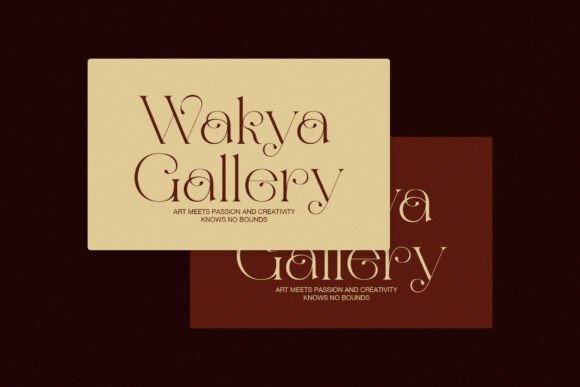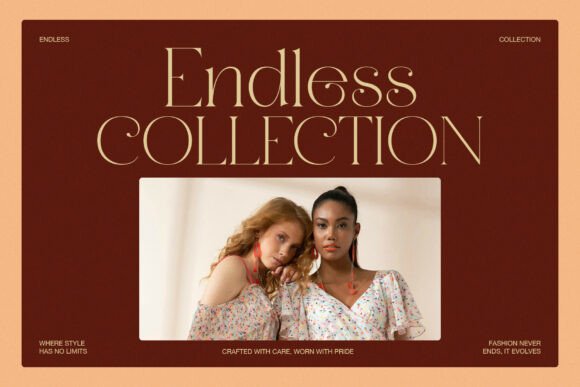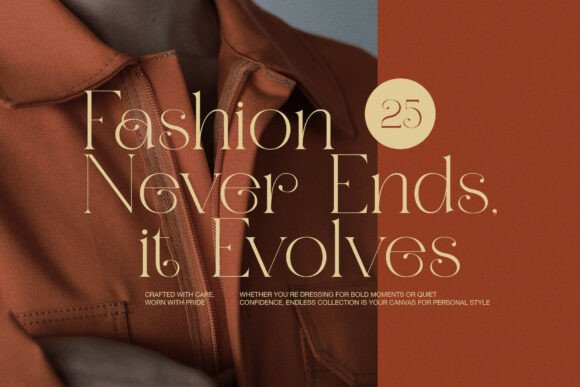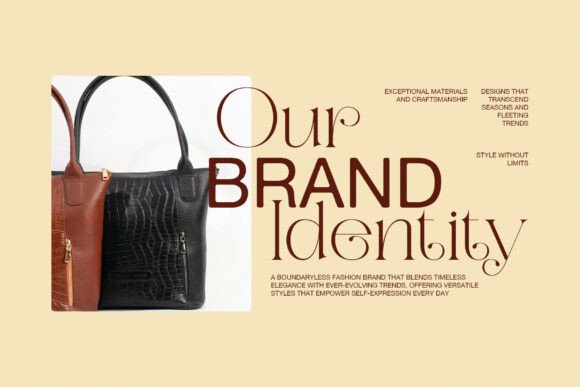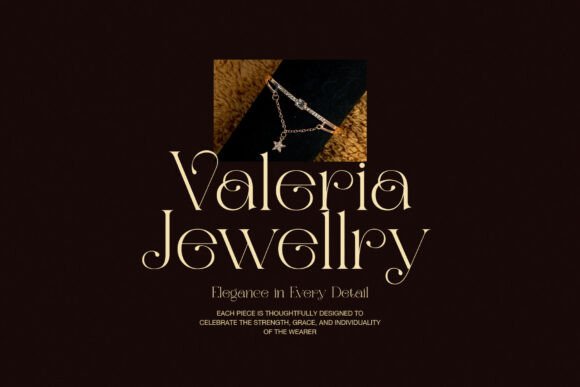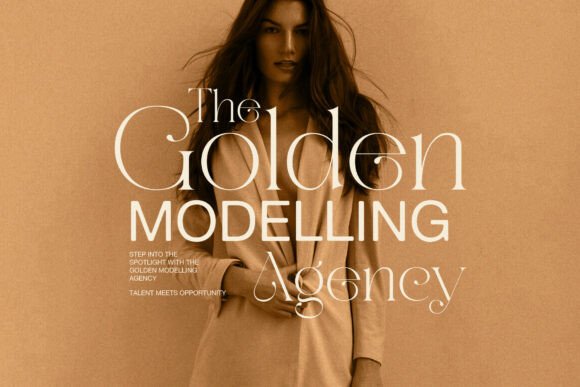
The Grigan Font: A Modern Serif for Creative Projects
I’ll never forget the struggle I faced while working on a branding project for a luxury skincare brand. My client wanted a font that exuded elegance, sophistication, and a touch of modernity. I scoured the internet, tried countless fonts, but nothing seemed to fit the bill. That was until I stumbled upon the Grigan font. With its clean lines, balanced shapes, and refined letterforms, it was love at first sight! ✨ In this article, I’ll share my experience with Grigan, its features, and how to make the most of this beautiful font.
An Honest Review of Grigan Font
What I Love About Grigan
- ✨ Clean and modern design: Grigan’s sleek lines and balanced shapes make it perfect for a wide range of branding needs.
- ✅ Refined letterforms: The font’s even spacing and polished look make it ideal for projects that require a professional feel.
- 💫 Smooth ligatures: Grigan’s functional ligatures ensure that your text flows beautifully, making your design more attractive without extra effort.
- 👍 Versatility: Whether you’re designing logos, packaging, websites, or magazines, Grigan offers a strong and professional feel while keeping your design fresh and easy to read.
While Grigan is an excellent font, there are a few minor limitations to consider:
- 🤔 Not ideal for body text: While Grigan is excellent for headings and titles, it may not be the best choice for lengthy body text due to its modern serif design.
The Story Behind Grigan Font
Grigan was designed by a team of typographers who aimed to create a modern serif font that combines elegance with functionality. Inspired by classic serif fonts, Grigan’s creators added a touch of modernity to make it suitable for a wide range of design projects. The result is a font that exudes sophistication and professionalism while remaining fresh and easy to read.
| What is Grigan font best used for? | Grigan is versatile and can be used for a wide range of design projects, including branding, packaging, websites, and magazines. |
| Can I use Grigan font for body text? | While Grigan is excellent for headings and titles, it may not be the best choice for lengthy body text due to its modern serif design. |
| Does Grigan font support OpenType features? | Yes, Grigan supports OpenType features, including ligatures and stylistic alternates. |